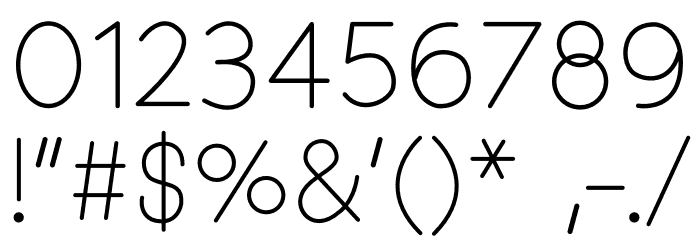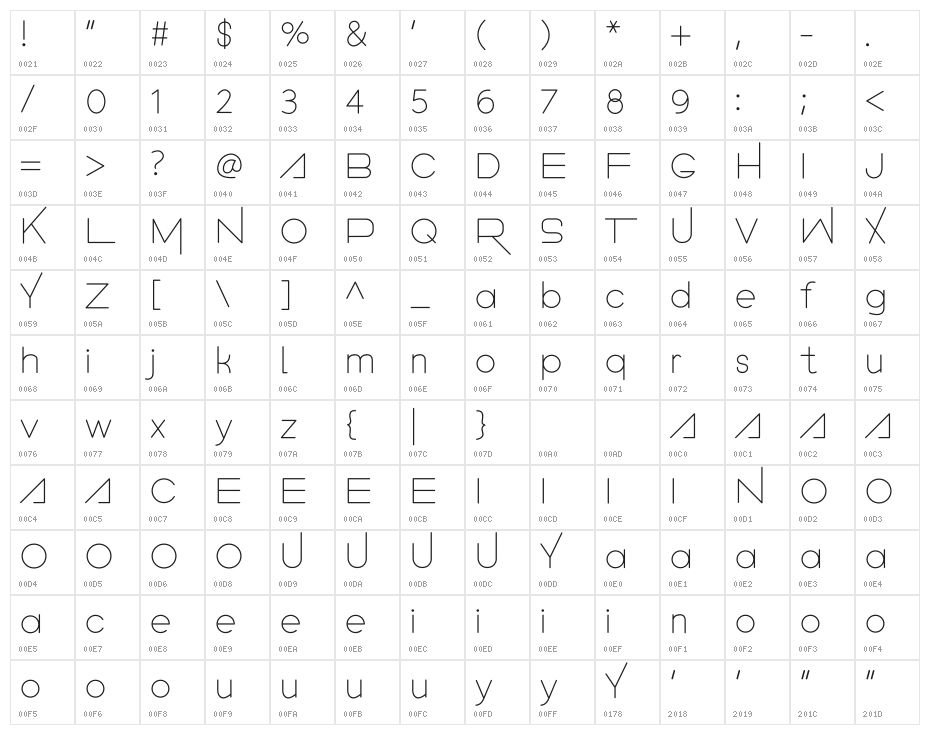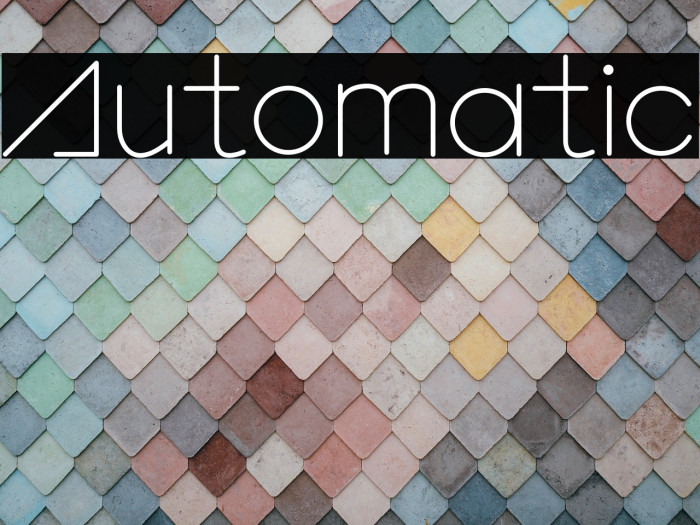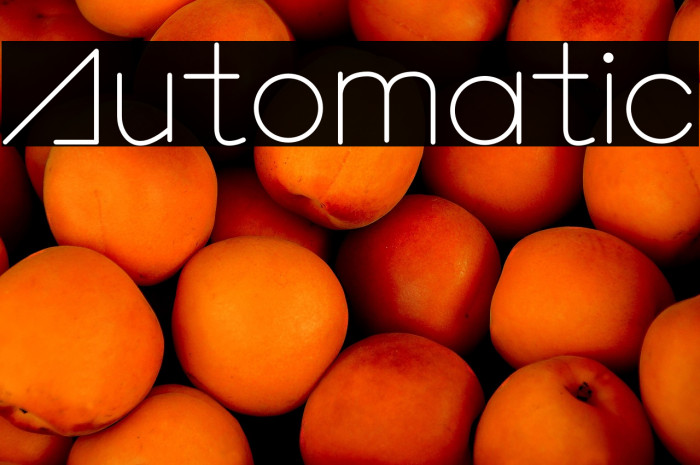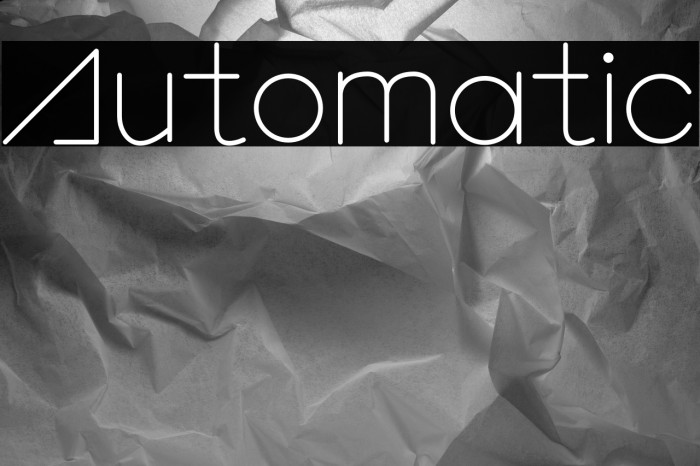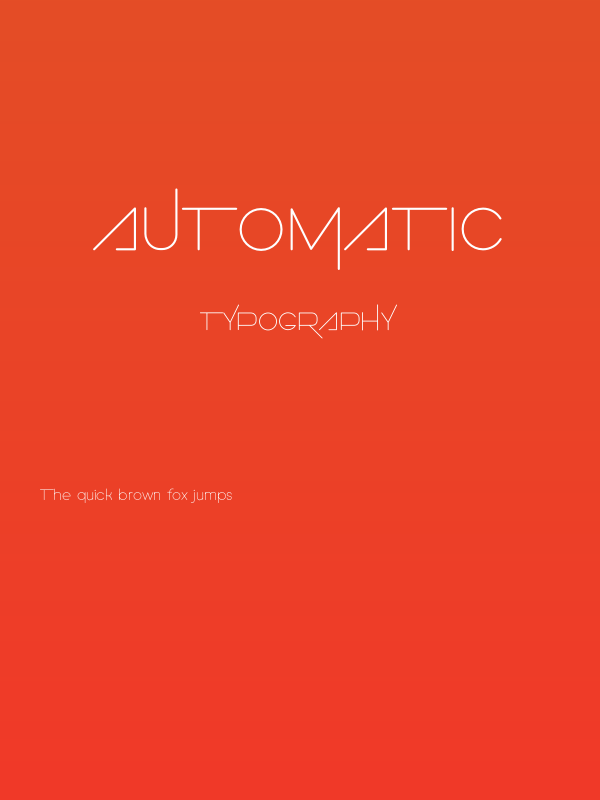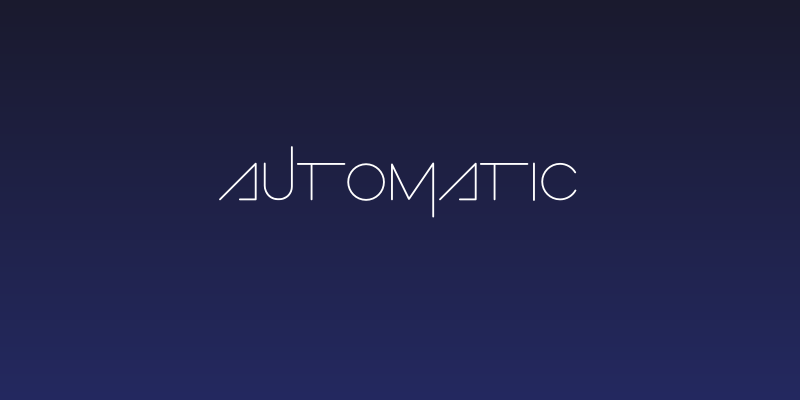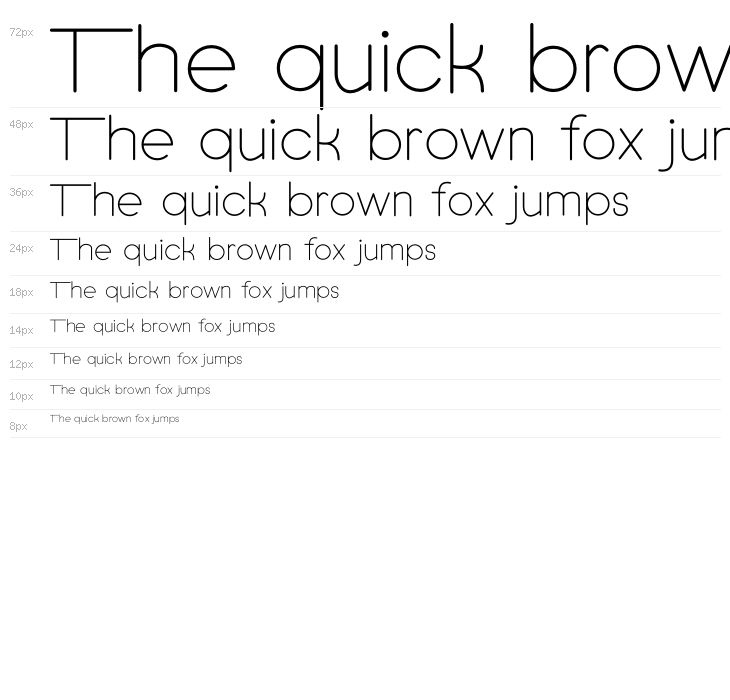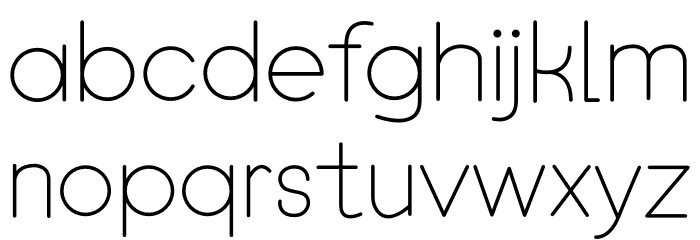
Automatic Font
Automatic Description
This font features a sleek, modern design with clean lines and a minimalist aesthetic. The uppercase letters are characterized by their geometric shapes, with some letters like 'A' and 'R' having unique, angular cuts that add a distinctive flair. The lowercase letters maintain a consistent roundness, providing a harmonious balance with the uppercase. The numerals are straightforward and align well with the overall style, ensuring readability. Special characters are designed with the same attention to detail, making them fit seamlessly into the font's aesthetic. This font's thin strokes and open forms make it ideal for contemporary design projects.
| Proposed Projects | Ideal for modern branding, tech-related designs, minimalist posters, and sleek product packaging. |